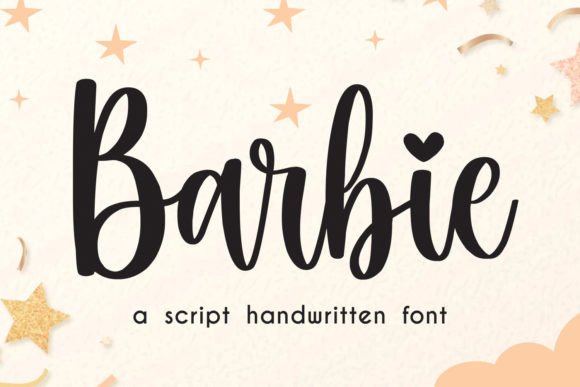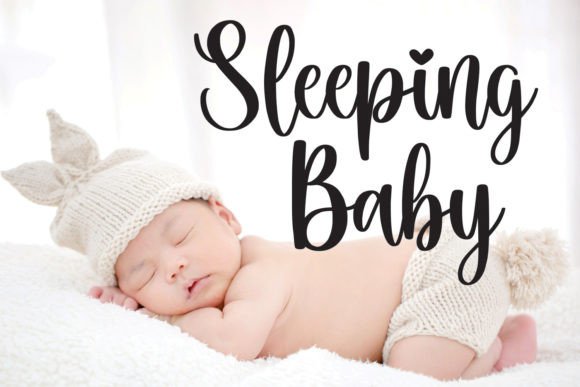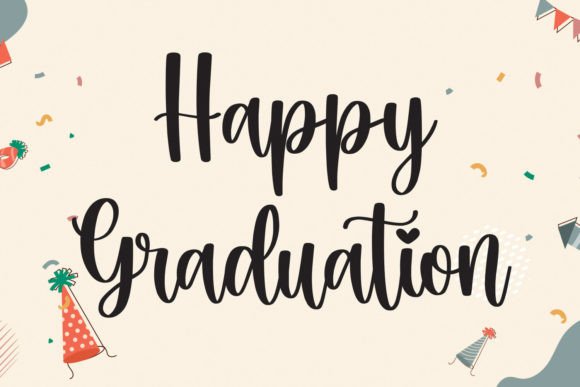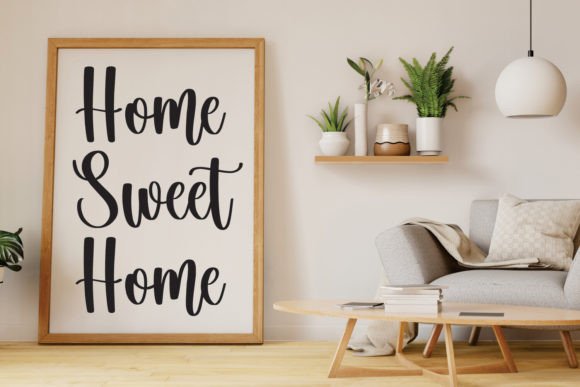
About the Barbie Font
The wait is over! The incredible Barbie Font is now available for your design toolkit. Barbie is a script handwritten style that embodies a perfect harmony between sophistication and youthful exuberance. It embodies elegance, making it an ideal choice for projects seeking to infuse a touch of whimsical beauty and feminine allure into their designs.